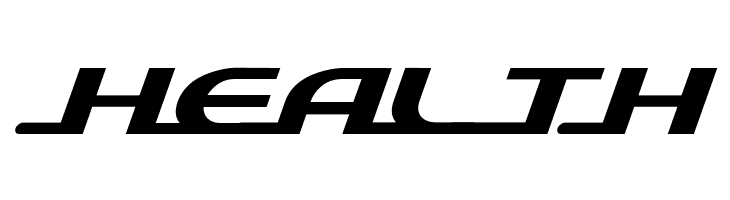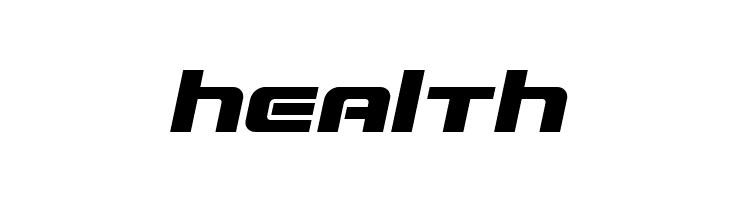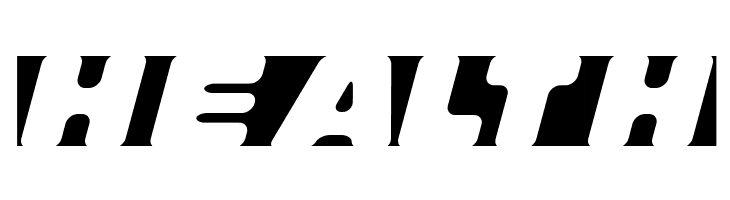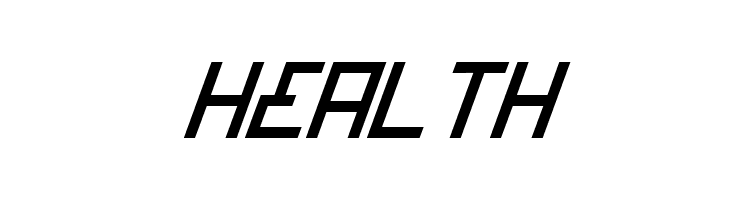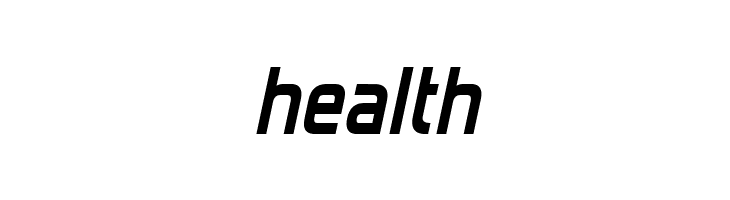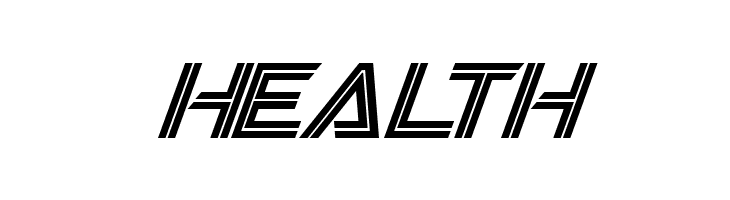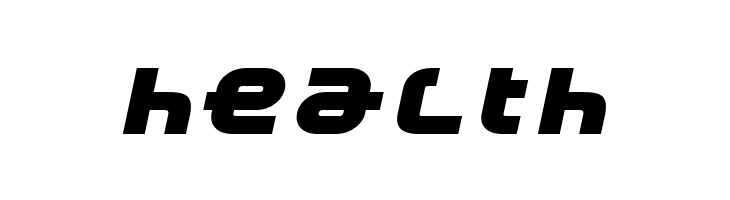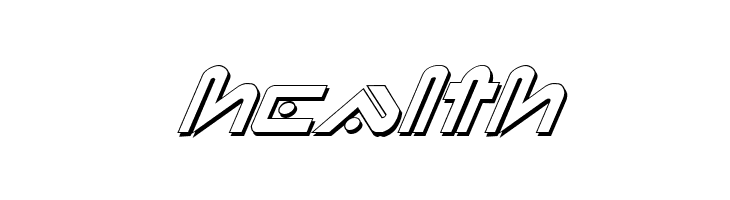
A bold, geometric font with sharp angles and a dynamic slant.
A bold, futuristic font with angular, slanted letterforms and a geometric style.
A futuristic, italicized font with sharp, angular lines and a digital aesthetic.
A dynamic, futuristic italic font with bold, angular lines and a layered effect.
A futuristic, italicized font with bold, geometric lines and a shadow effect.